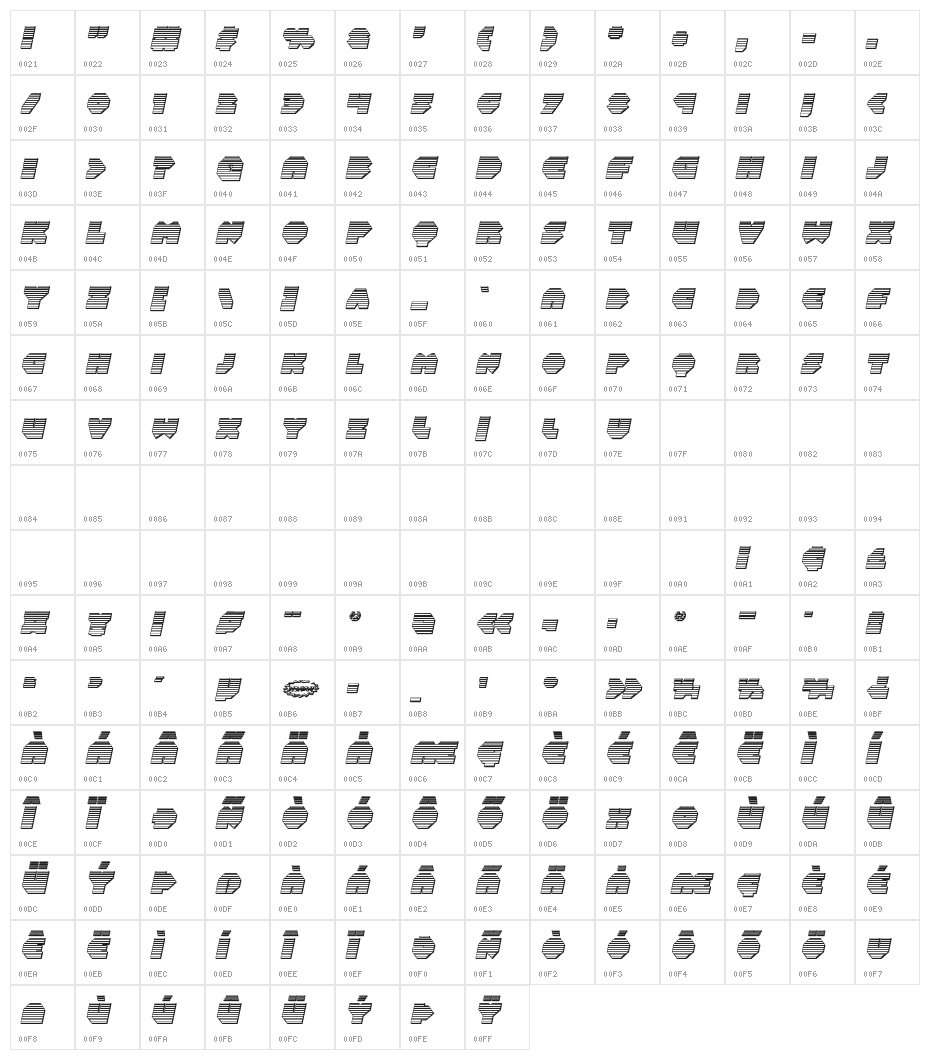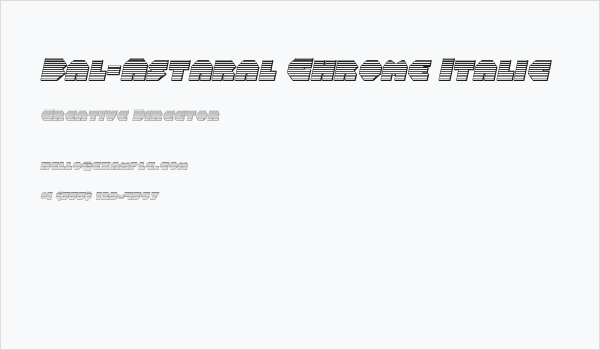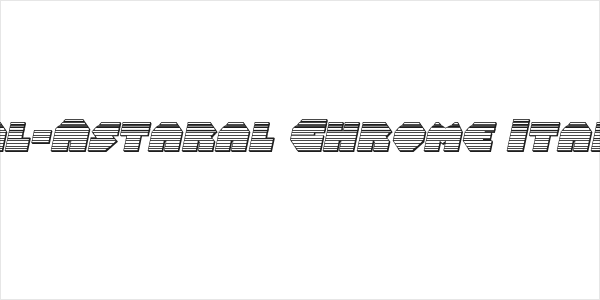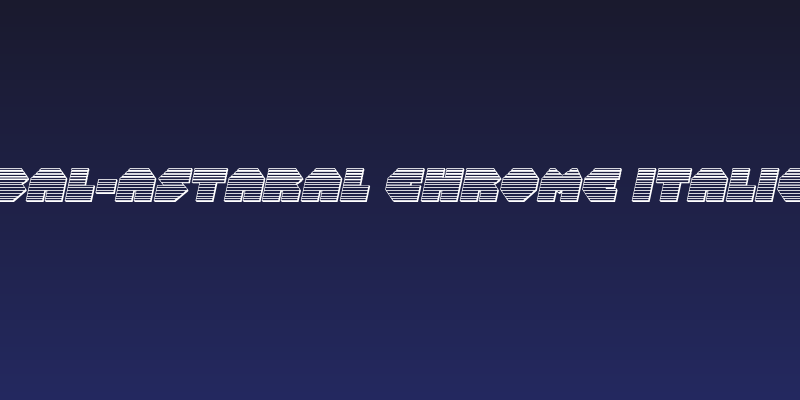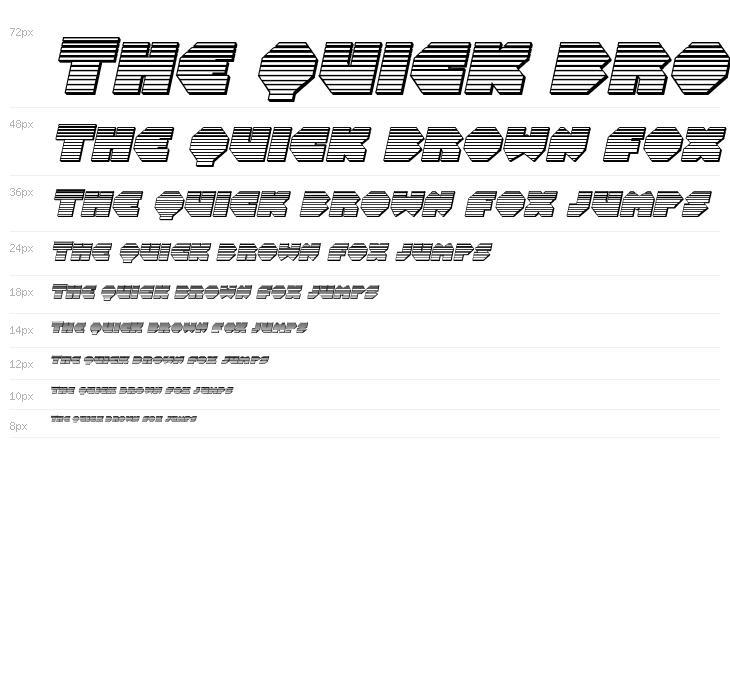
Bal-Astaral Chrome Italic Font
Bal-Astaral Chrome Italic Description
This font features a bold, futuristic design with a distinct three-dimensional effect created by parallel lines. Each character is crafted with a sense of depth, giving it a chrome-like appearance that stands out. The italicized slant adds a dynamic and forward-moving feel, making it ideal for projects that require a modern and edgy look. The uppercase and lowercase letters maintain a consistent style, while the numbers and special characters are equally bold and impactful. The overall design is both decorative and functional, suitable for a variety of creative applications.
| Proposed Projects | Ideal for sci-fi themed designs, video game titles, futuristic branding, and eye-catching posters. |